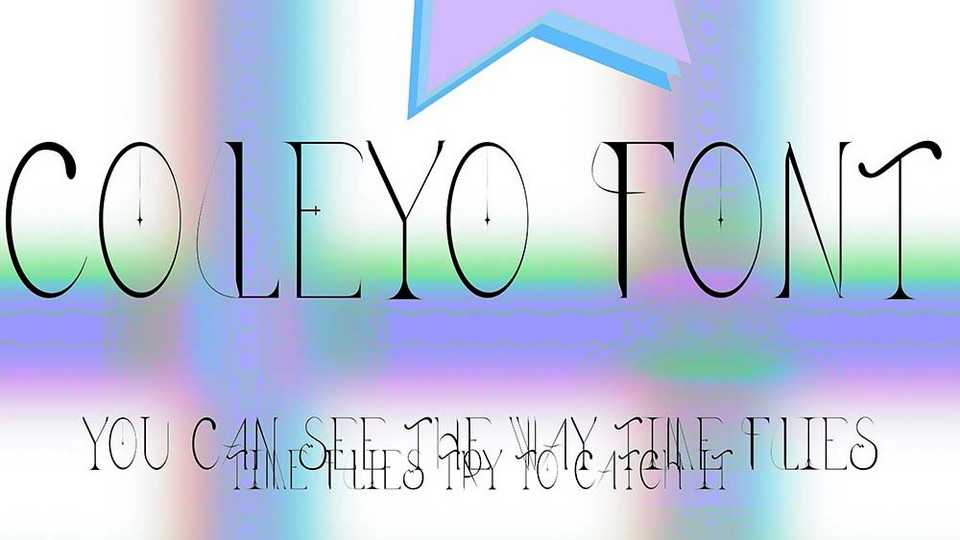
Download Coleyo font, an imperfect mix of modern, flowing, and elegance. Coleyo is perfect to make something thought provoking or admirable.. really, just make something you love!